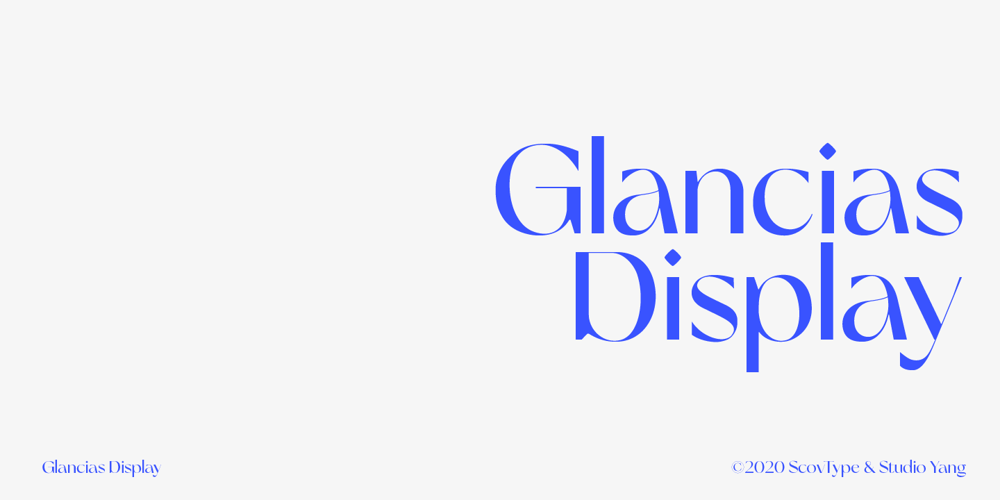
Glancias Font Family was designed by Chang Su, Nico Yang and published by ScovType. Glancias contains 1 styles and family package options. Glancias Display is a contemporary typeface for article headings. In order to create a style that merges serif and sans serif and to attemp a minimalistic final appearance, Glancias Displas removed the serifs while remaining the high-contrast strokes which are usually found in a serif font. By removing serifs and cutting stroke ends vertically and horizontally, the font has been built in a modern, sleek, neutral and also concise look. Over 400 glyphs in total including upper and lowercase characters, figures, ligatures and signs are available. Glancias Display covers Latin based languages of North and South America and most of Western Europe.